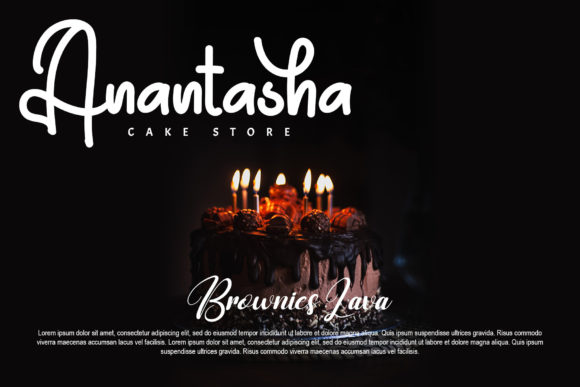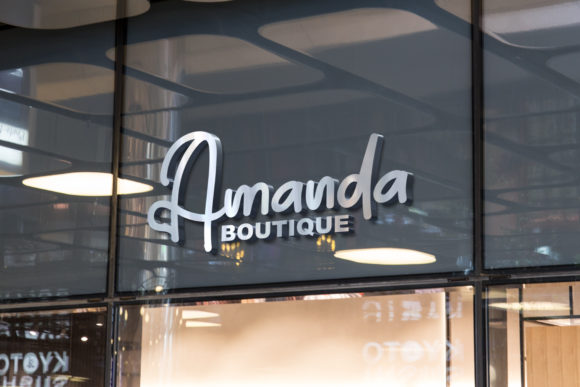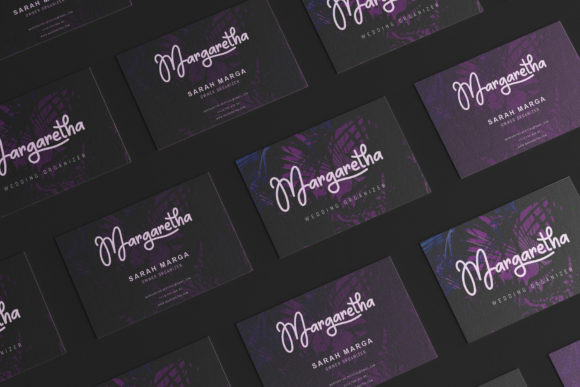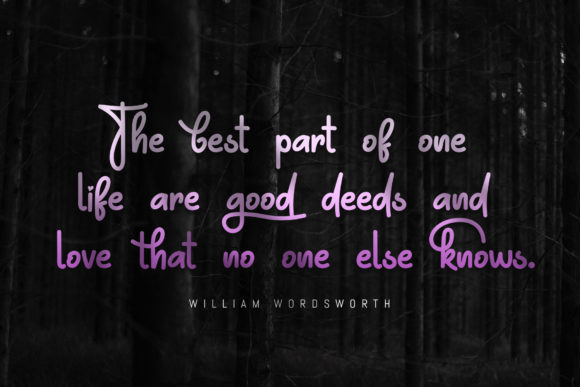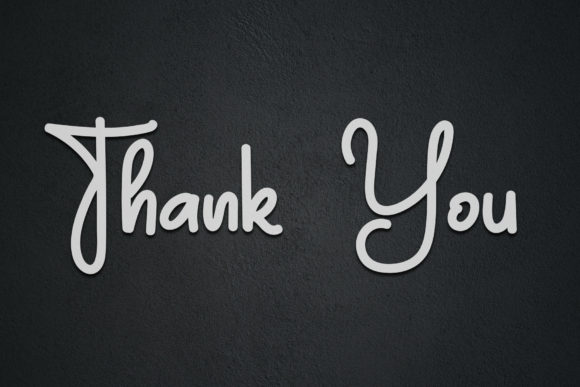
Babylonia Font: Elevate Your Designs with Elegant Whimsy
In the world of typography, few fonts capture the essence of elegance and playfulness as beautifully as the Babylonia Font. This stunning script font is a treasure trove of smooth curves and whimsical charm, making it an ideal choice for designers and crafters looking to add a touch of sophistication to their projects. Whether you’re working on fashion branding, editorial designs, or any creative endeavor that demands a unique visual appeal, Babylonia is sure to impress.
The Beauty of Babylonia Font
Babylonia Font is a masterpiece of modern typography, boasting a beautiful and whimsical design that instantly elevates any project. Its smooth curves and fluid lines create a sense of movement and elegance, perfect for designs that require a touch of luxury and refinement. The font’s unique character set includes a wide range of letters, numbers, and punctuation marks, ensuring that you have everything you need to create stunning text-based designs.
Perfect for Fashion Branding
Fashion branding demands a level of sophistication and style that Babylonia Font effortlessly provides. The font’s elegant curves and whimsical flair make it an excellent choice for designers looking to create luxurious and eye-catching logos, advertisements, and marketing materials. Whether you’re working with high-end fashion labels or indie designers, Babylonia Font is sure to bring a level of refinement and glamour to your projects.
Editorial Designs Made Easy
Editorial designs require a level of creativity and flair that Babylonia Font readily provides. The font’s unique character set and smooth curves make it perfect for use in magazines, blogs, and other publications where visual appeal is paramount. Whether you’re designing a feature article, a blog post, or a social media graphic, Babylonia Font is sure to add a touch of elegance and sophistication to your work.
Why Choose Babylonia Font?
So why choose Babylonia Font for your next project? Here are just a few compelling reasons:
- Elegant Design: Babylonia Font boasts a beautiful and whimsical design that instantly elevates any project.
- Smooth Curves: The font’s smooth curves and fluid lines create a sense of movement and elegance.
- Versatile: Babylonia Font is perfect for a wide range of projects, from fashion branding to editorial designs.
Tips for Using Babylonia Font
To get the most out of Babylonia Font, here are a few tips to keep in mind:
- Pair with Bold Fonts: Babylonia Font pairs beautifully with bold fonts, creating a striking contrast that’s perfect for headlines and titles.
- Use for Headings: The font’s elegant design makes it perfect for use in headings and titles, where visual appeal is paramount.
- Experiment with Colors: Babylonia Font looks stunning in a wide range of colors, so don’t be afraid to experiment and find the perfect hue for your project.
In conclusion, Babylonia Font is a stunning script font that offers a unique blend of elegance and whimsy. Its smooth curves and fluid lines make it perfect for a wide range of projects, from fashion branding to editorial designs. With its easy-to-use design and versatile character set, Babylonia Font is sure to become a favorite among designers and crafters. So why wait? Add Babylonia Font to your projects today and experience the magic of elegant typography.